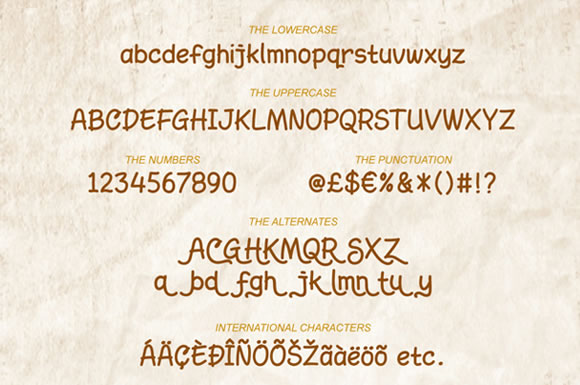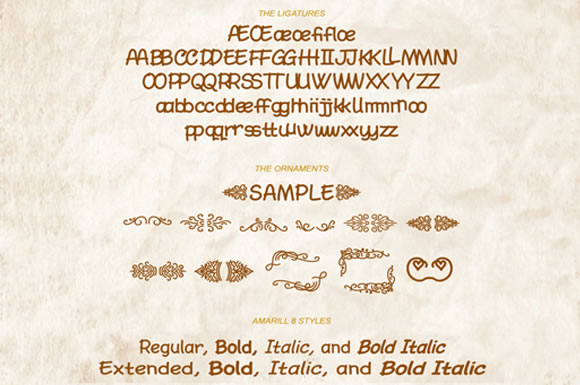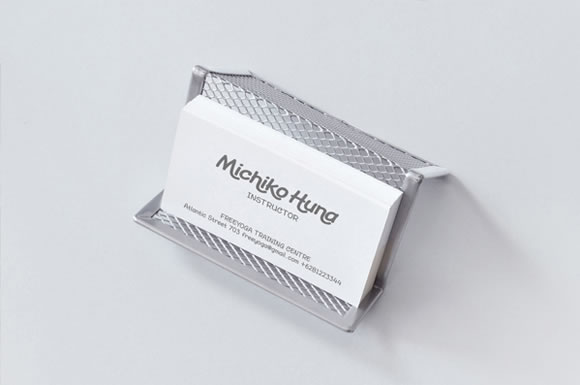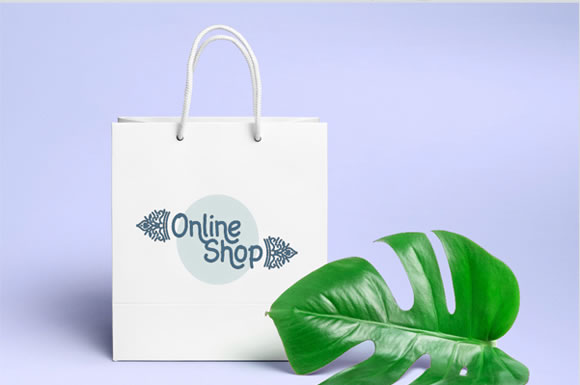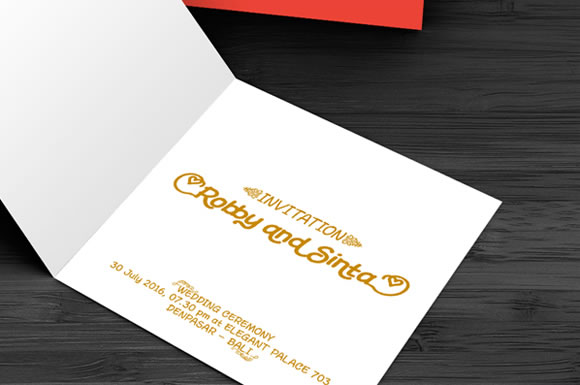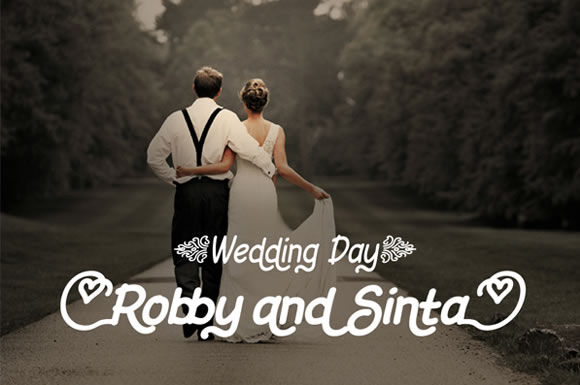
Discover the Charm of the Amarill Font
As a designer, have you ever found yourself staring at a blank canvas, desperately seeking the perfect font to bring your vision to life? The struggle is real, but what if you stumbled upon a font that effortlessly captures the essence of modern elegance? For those in search of that perfect font, look no further than the Amarill Font, a stunning creation by Cove703, a small foundry from Bali, Indonesia.
The Amarill Font is a beautifully crafted handwritten modern sans serif font designed to add a touch of sophistication to any design project. With 8 different styles and 341 glyphs to choose from, this versatile font offers endless possibilities for creative expression. Whether you’re a seasoned designer or just starting out, the Amarill Font is an invaluable addition to your toolkit, providing a unique and stylish solution for any project.
Amarill Font Key Features
- Font Family: Amarill is a sans-serif font family designed for optimal readability.
- Character Set: Amarill Font supports a wide range of languages, including Latin, Cyrillic, and Greek scripts.
- Font Size: Amarill Font is available in 6 different weights, ranging from Thin (100) to Extra Bold (800).
- Unique Characteristics: Amarill Font features a unique blend of modern and vintage elements, with a distinctive x-height and a wide range of typographic features.
Amarill Font Review
I recently had the chance to work with the Amarill font, and I have to say, it’s been a mixed bag for me. Let’s dive in and see what I think.
- The Amarill font has a unique and elegant feel to it, perfect for creating a sophisticated look for branding and advertising materials.
- Its high x-height makes it highly legible, even at smaller font sizes, which is a huge plus for any designer.
- The font’s weight range is quite extensive, allowing for a lot of versatility in its use.
- The Amarill font is a bit too ornate for my taste, which can make it feel overwhelming if used excessively.
- The font’s italic styles can be a bit tricky to read, especially at smaller sizes.
- There’s a slight lack of bold weights, which can limit its use in certain situations.
Overall, I’d say the Amarill font is a solid choice for designers looking for a unique and elegant font. While it has its limitations, it’s still a great option for the right projects. With a bit of restraint and creative direction, I think the Amarill font can be a real showstopper.
Tips for Getting the Most Out of Amarill Font
Amarill Font is a beautiful, elegant script font. To get the most out of it:
- Use it for titles, headings, and other attention-grabbing text.
- Pair it with a clean sans-serif font for body text.
Amarill Font is ideal for:
- Business cards
Alternatives to Amarill Font
Carolyna Pro is a stylish and modern script font with a touch of elegance. It’s perfect for creating a luxurious and sophisticated look in branding, packaging, and advertising designs. When to use: Fashion, beauty, and lifestyle brands.
Comparison to Amarill Font: Carolyna Pro has a more refined and sophisticated look compared to Amarill Font, making it suitable for high-end designs. Amarill Font has a more playful and casual feel, while Carolyna Pro exudes luxury and elegance.
What is the recommended font size for optimal readability with Amarill Font?
The recommended font size for optimal readability with Amarill Font is between 12 and 14 points. However, this may vary depending on the specific use case and design requirements. It’s always a good idea to test different font sizes to find the one that works best for your project.